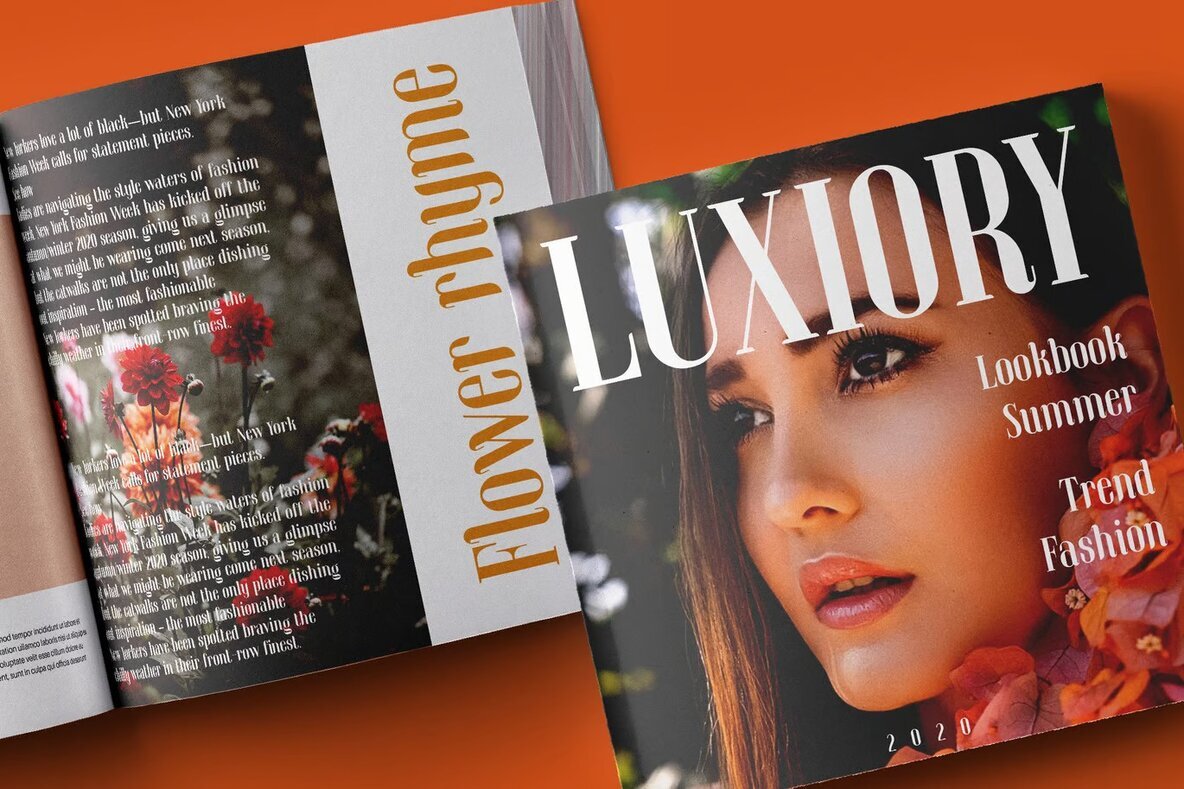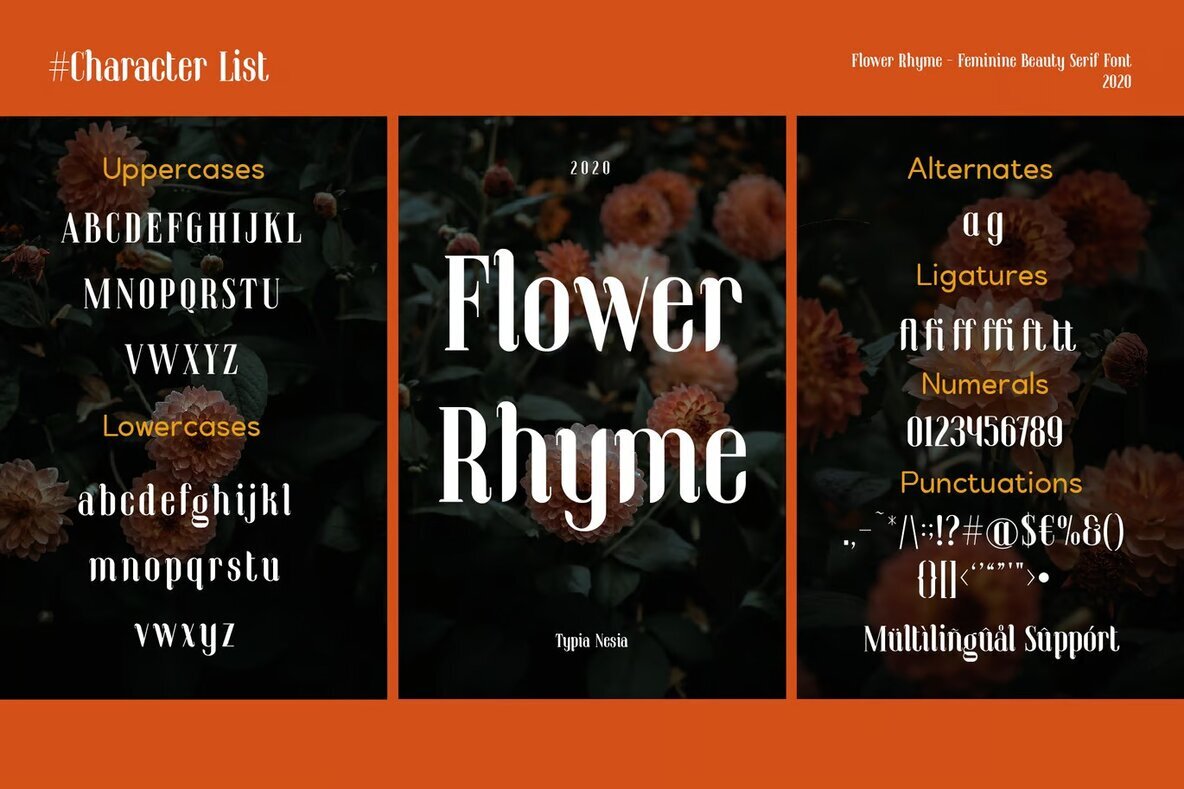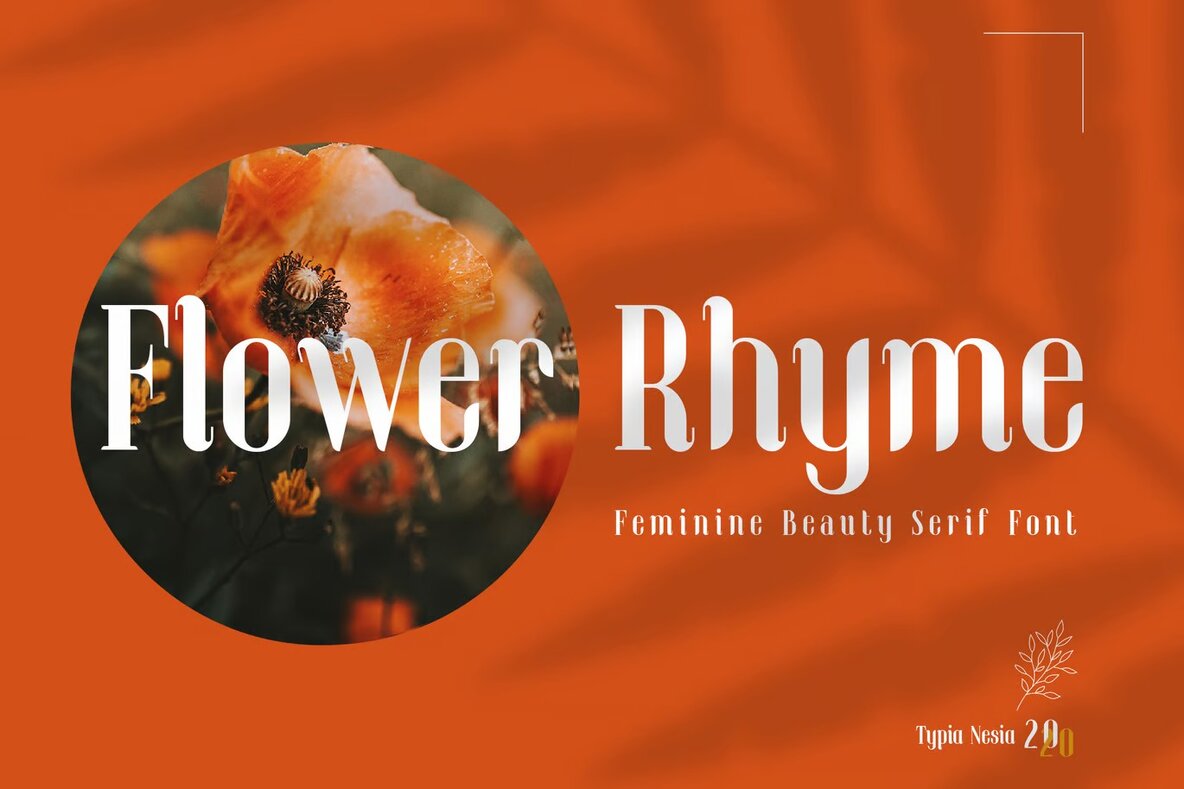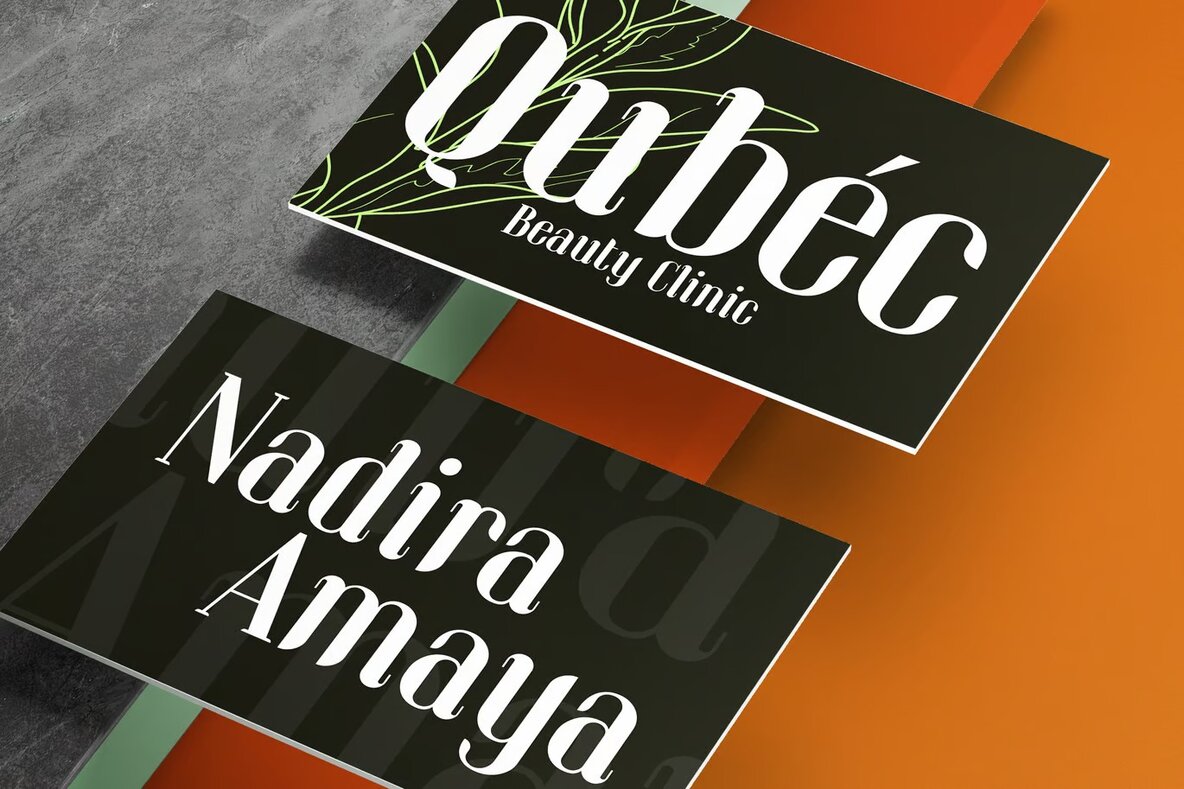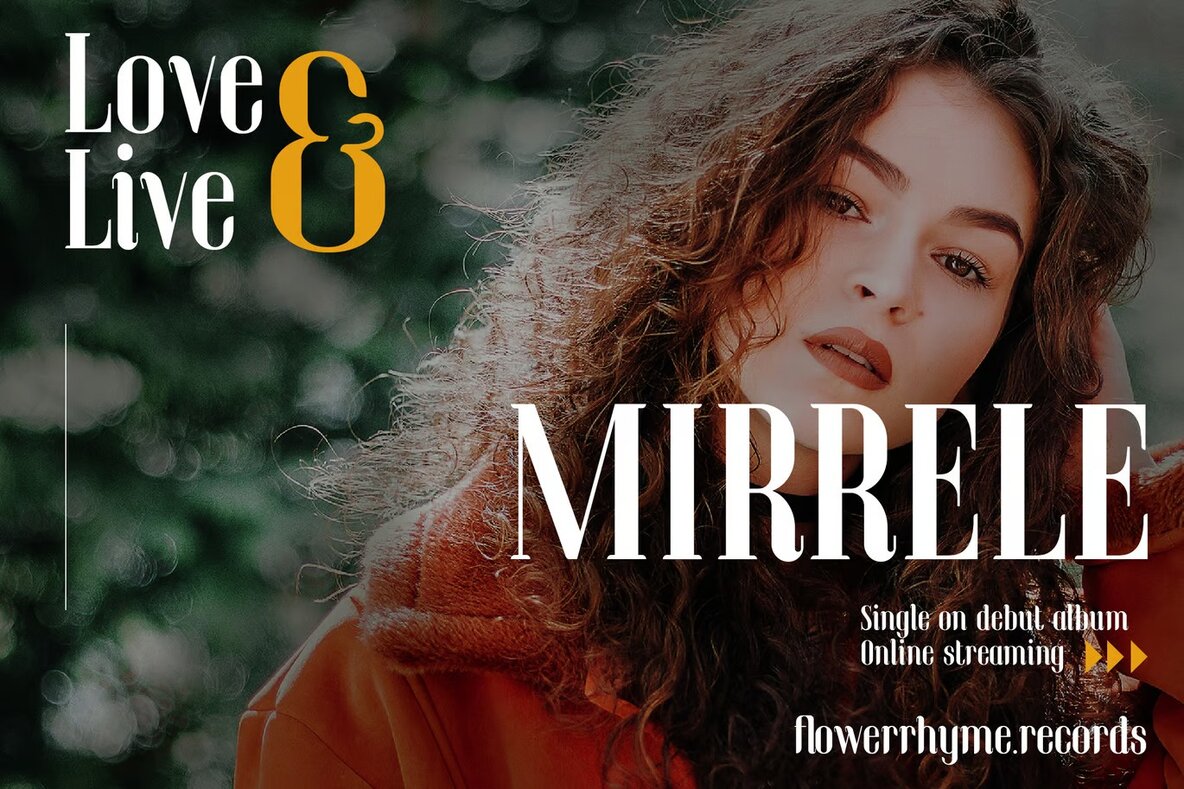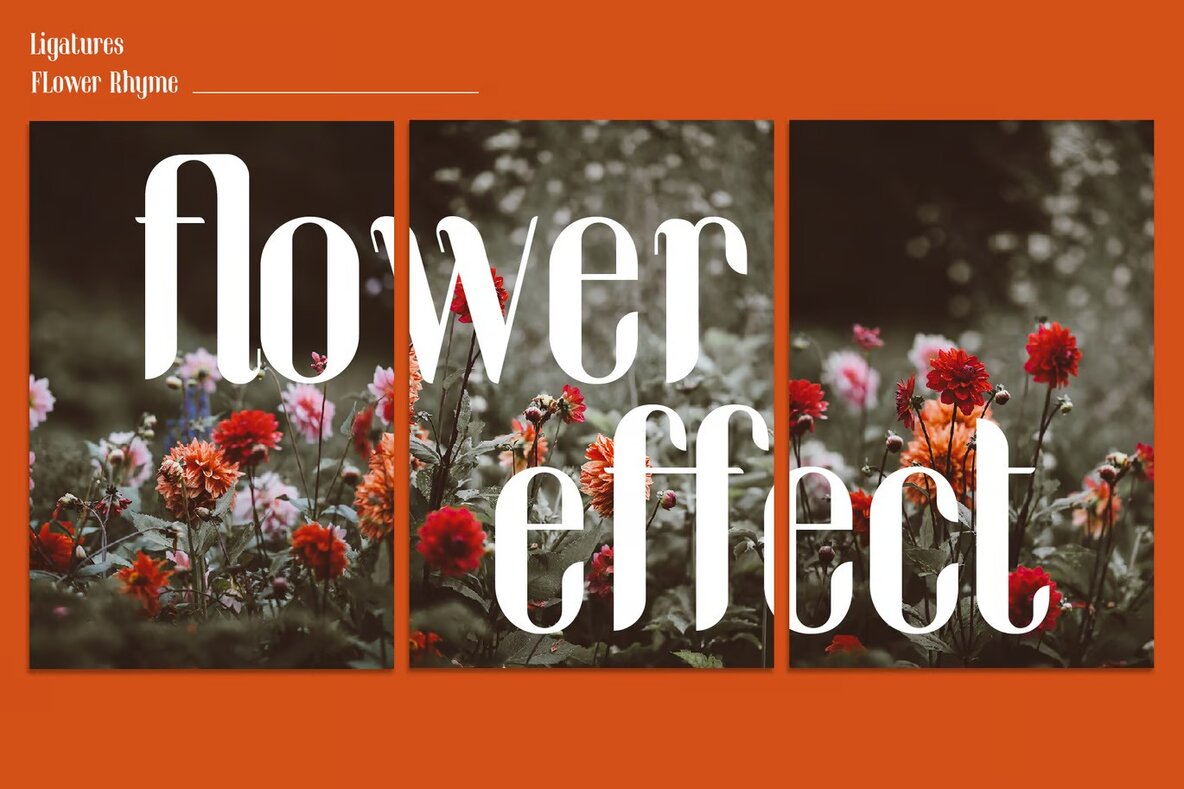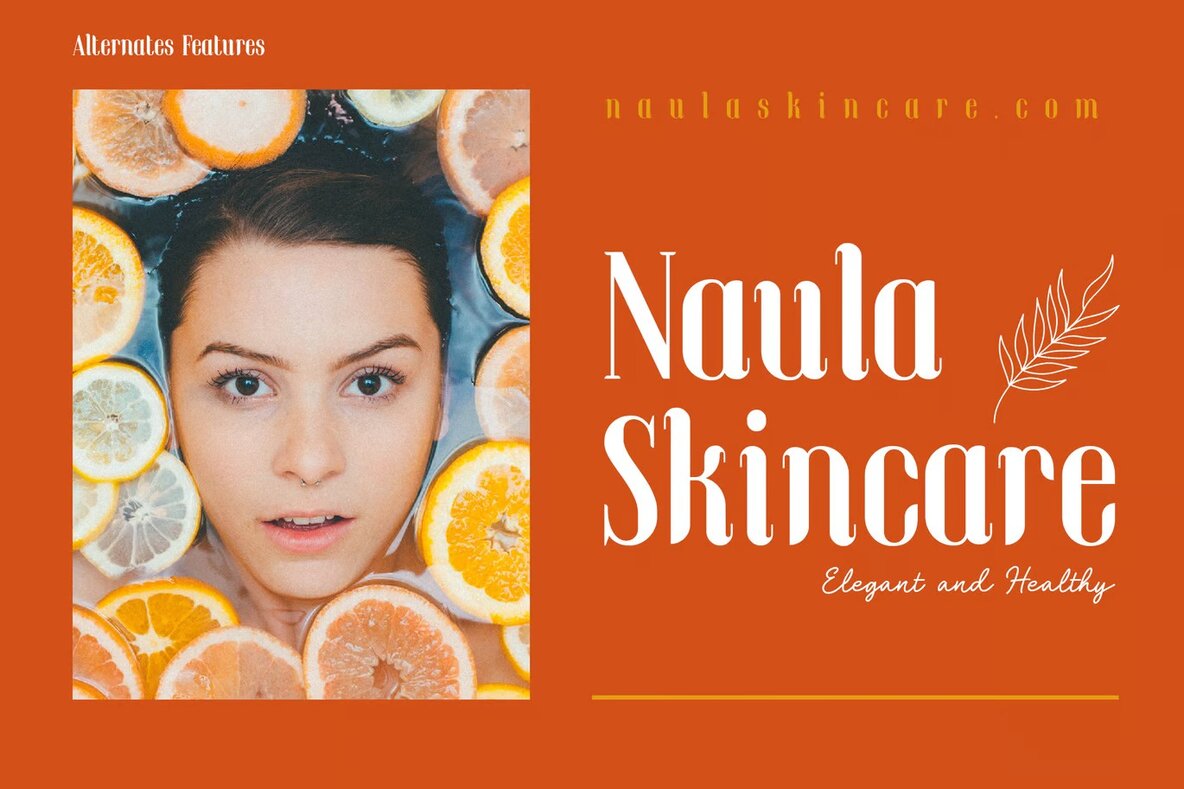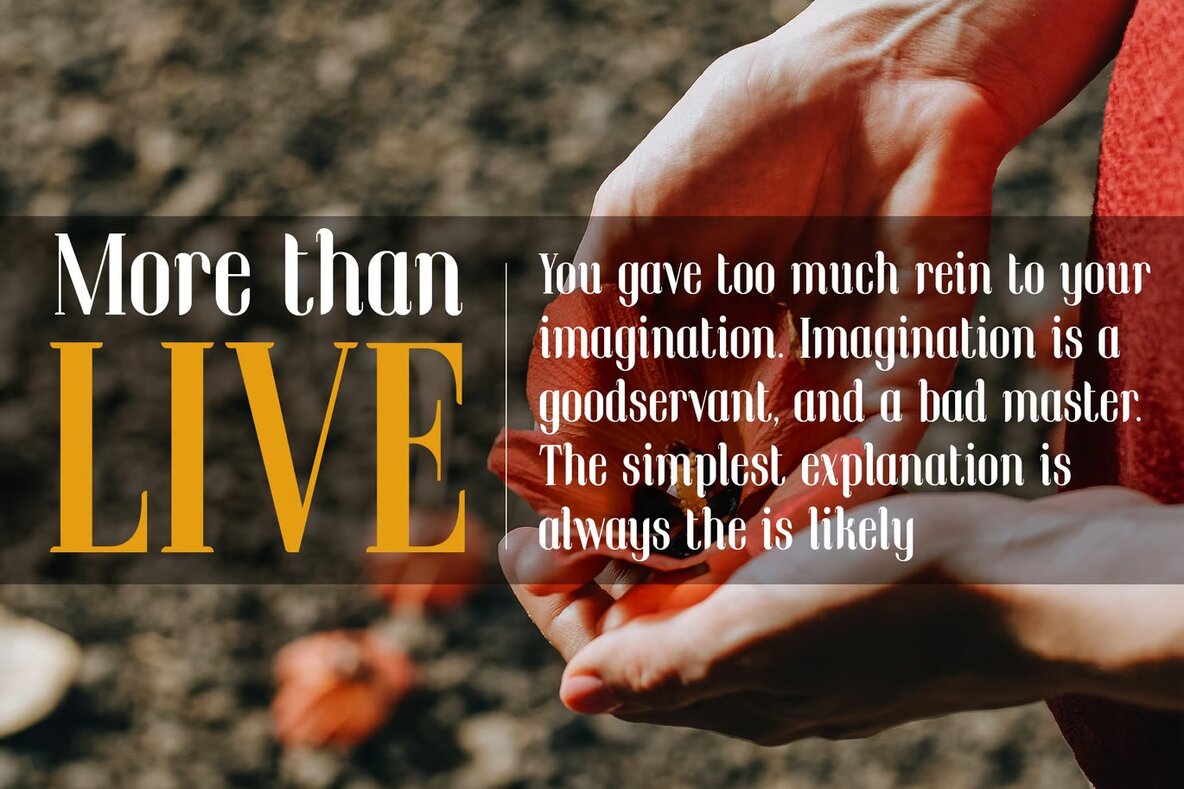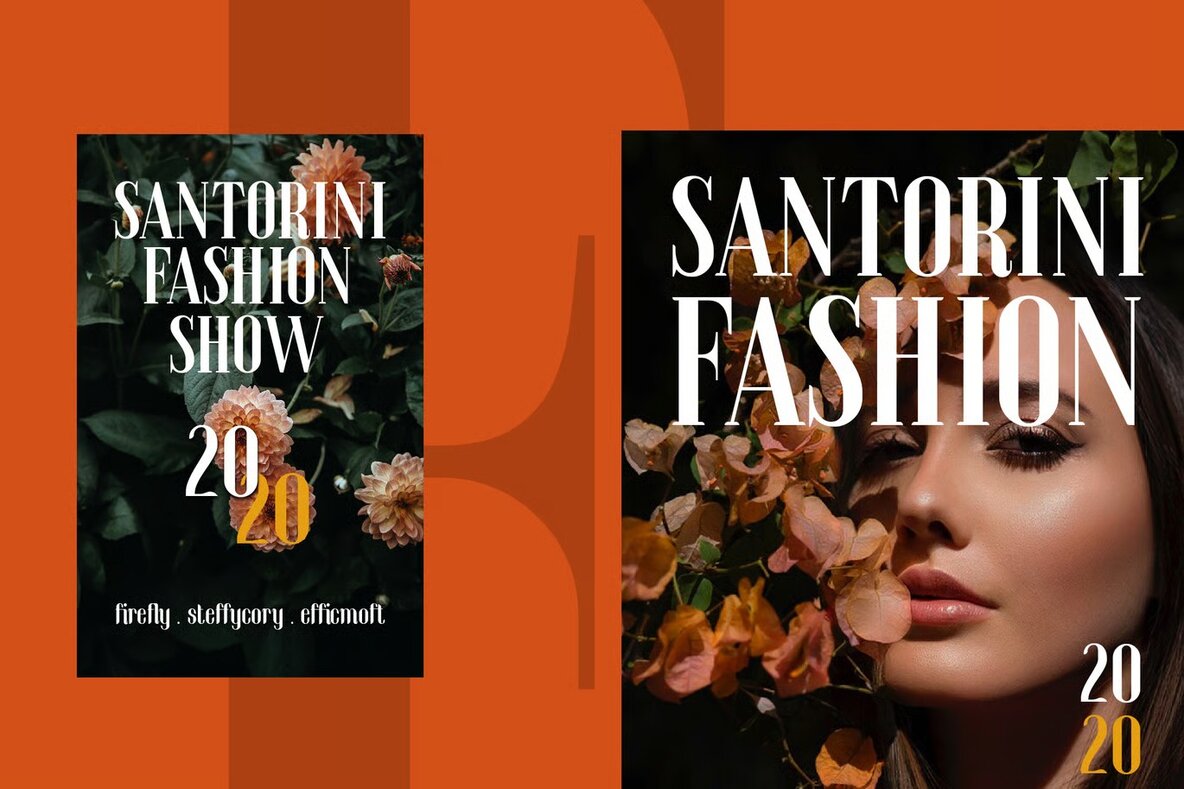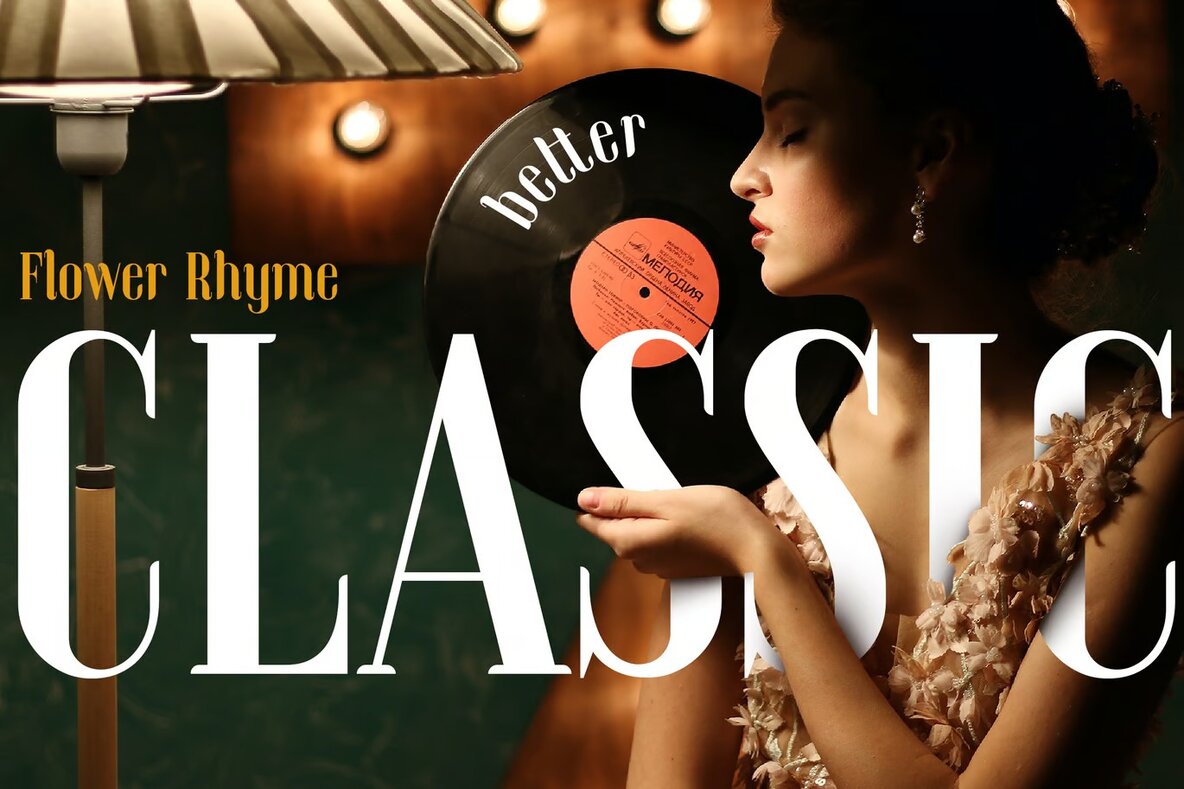
Flower Rhyme Font
Flower Rhyme is a romantic serif font meticulously crafted for various design applications. Its elegant design suits luxury logos, high-end branding, and sophisticated editorial layouts perfectly. Enhance your fashion promotions, elevate your boutique's branding, or bring a touch of class to your stationery and blog designs with this exquisite typeface.
Ideal for modern advertisements, card invitations, and art quotes, Flower Rhyme adds a touch of timeless romance to any project. Whether you're working on home decor, book covers, or preparing for special events, this serif font offers versatility and style, making it an essential addition to your design toolkit.